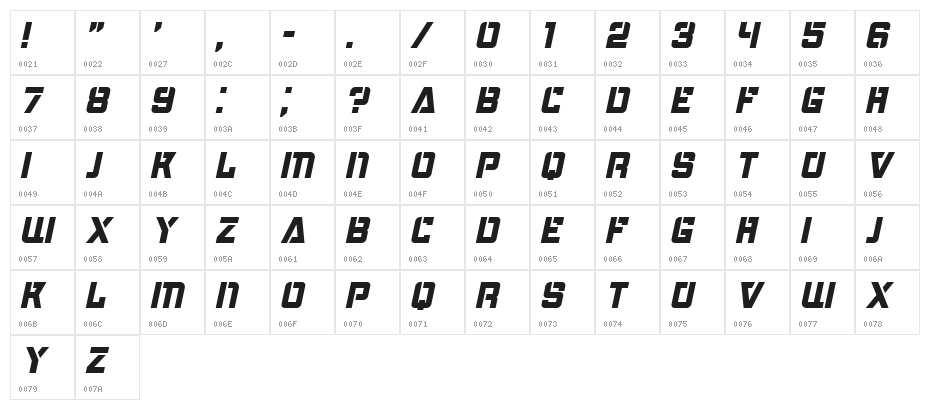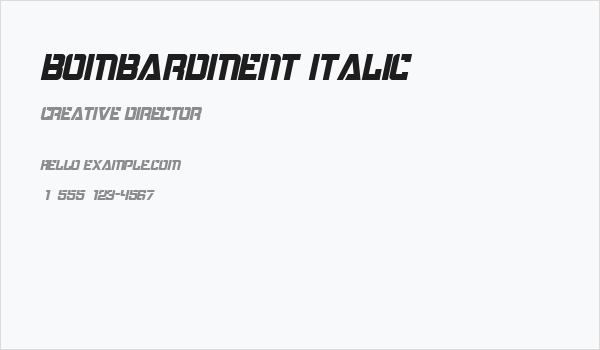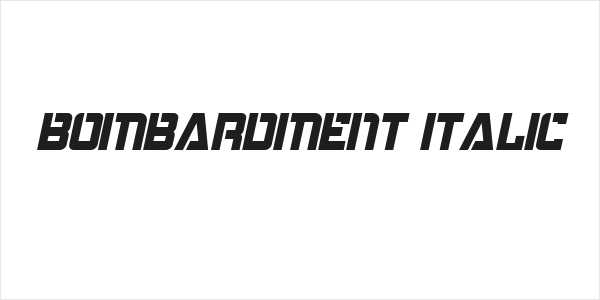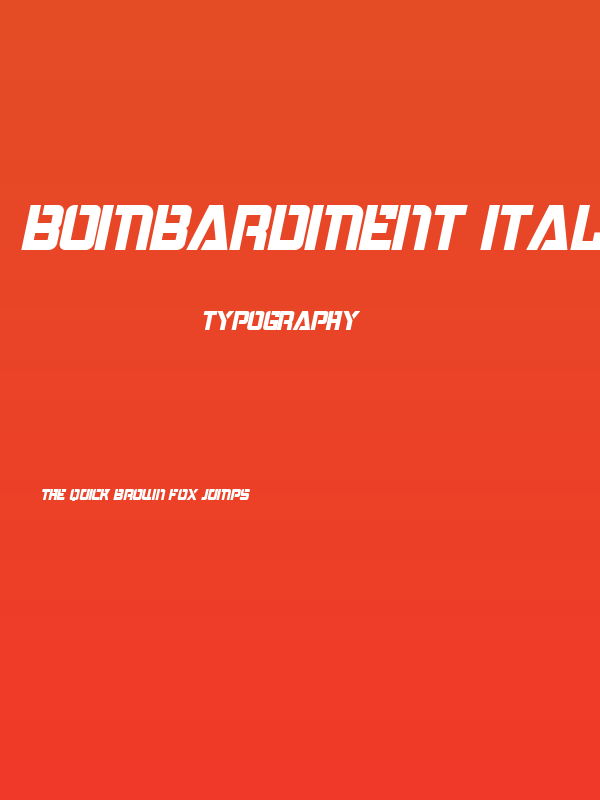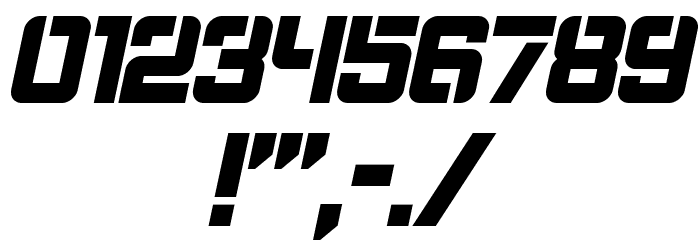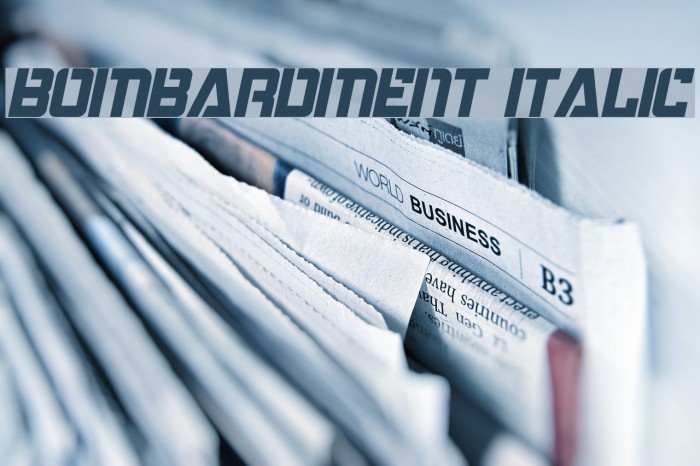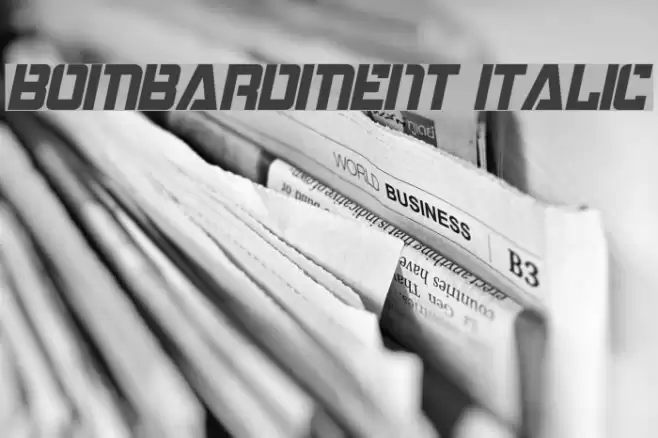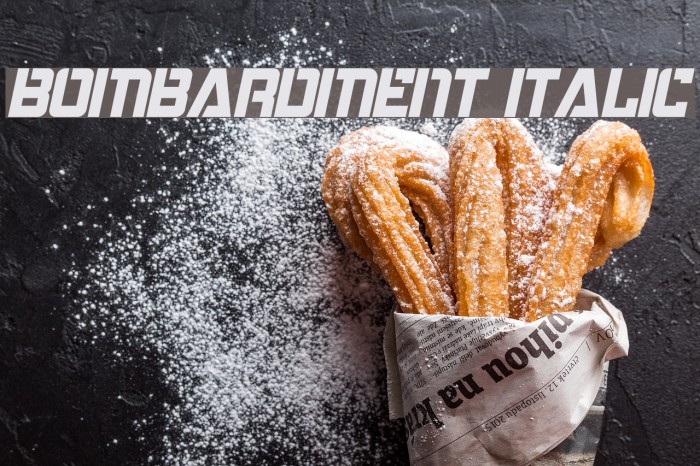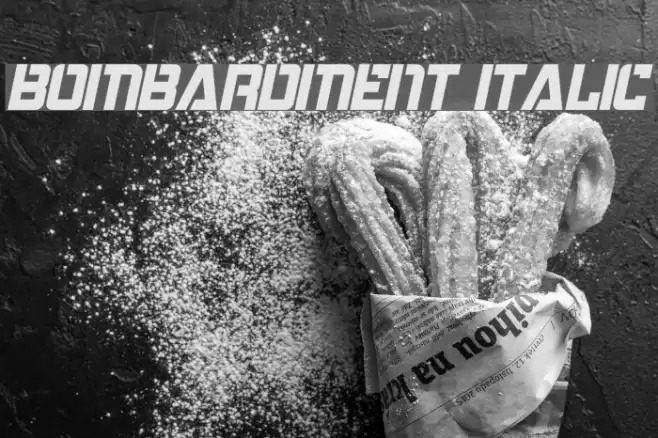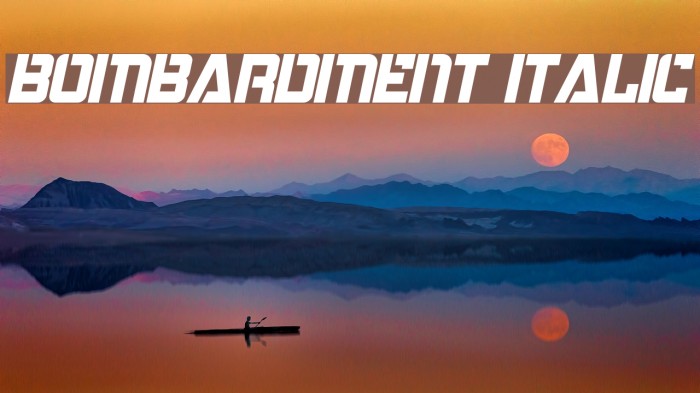
Bombardment Italic Font
This font features a bold, italicized style with a strong, angular design. The characters are slightly condensed, giving it a compact appearance. The strokes are thick and consistent, providing a high contrast that enhances readability. The overall look is modern and dynamic, with a sense of movement and energy. The uppercase and lowercase letters are designed with a uniform width, and the numerals are equally bold and striking. Special characters maintain the same boldness, ensuring consistency across all glyphs.